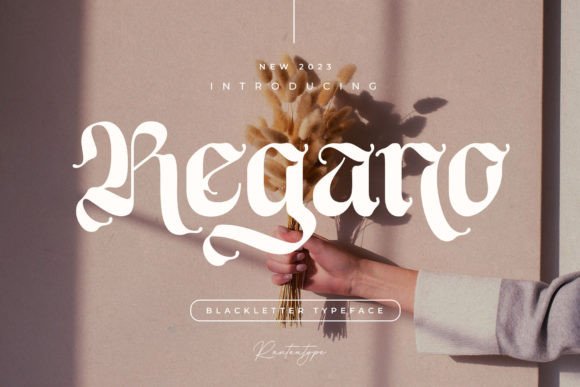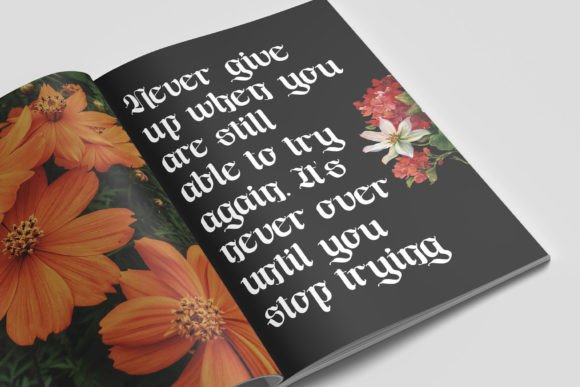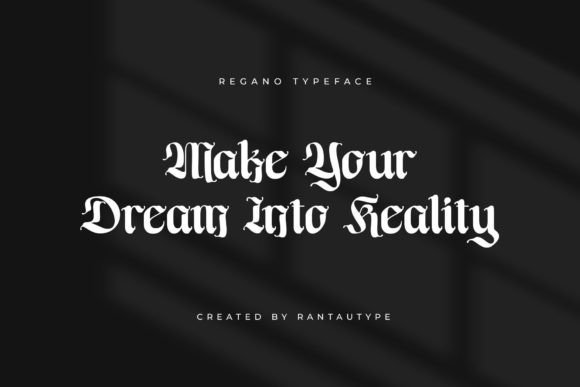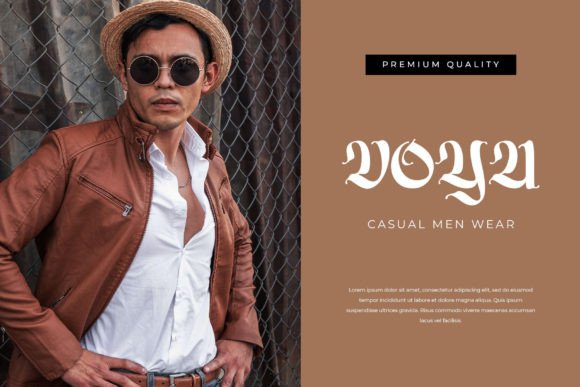
Regano Font: Elegant Blackletter for Unique Logo Design & Typography
About the Regano Font
Crafted with precision, the Regano Font is ready to bring your ideas to life. Regano is classic blackletter font with delicate curves and refined details create a sense of sophistication and elegancy. Regano brings a touch of charm and sophistication to branding, editorial designs, and more.
Regano’s elegant, yet slightly playful personality makes it ideal for headlines, logos, and short-form text in branding materials, invitations, and packaging design where its refined details shine. It also works well in posters and other display applications requiring a touch of vintage sophistication. However, its intricate detail makes it unsuitable for body text or UI elements where readability is paramount. Long paragraphs set in Regano would be difficult to read.
Pairing Regano effectively depends on the desired outcome. For a classic feel, consider pairing it with a clean serif like Garamond or a neutral sans-serif like Lato. To emphasize its playful side, a rounded sans-serif like Bebas Neue or a script font with a similar level of refinement could create a balanced, yet dynamic combination. Avoid pairing it with overly geometric or stark fonts, which would clash with its organic curves.
Its overall aesthetic is best described as sophisticated yet approachable, balancing elegance with a subtle hint of whimsy. This makes it an excellent choice for brands aiming to convey a sense of timeless quality with a touch of personality, such as boutique hotels, high-end stationery, or artisanal food products.